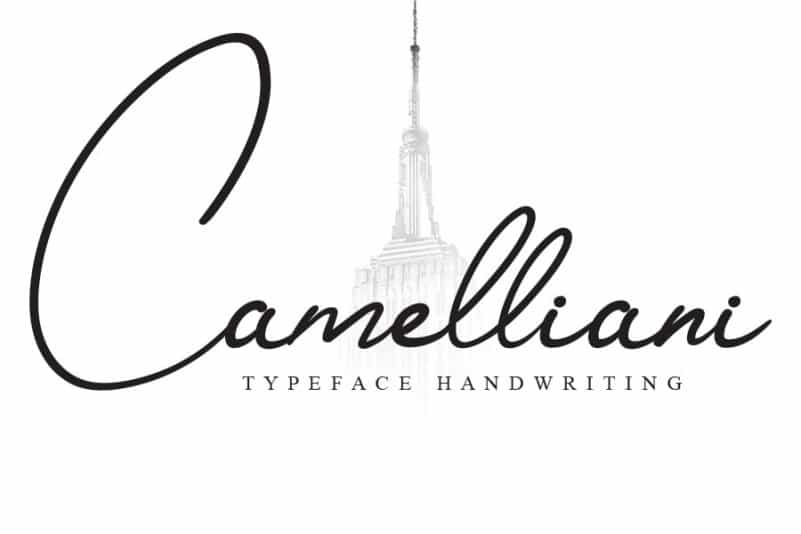
Camelliani Script Font
Camelliani Script Font is a delicate and natural script font. It has beautiful and well balanced characters and as a result, it matches a wide pool of designs. Add it to your most creative ideas and notice how it makes them come alive!
the latest style letters are perfect for wall displays, wedding invitations, social media post logos,
advertisements, product packaging, product designs, labels, photography, watermarks, invitations, stationery,
and any project that requires taste handwriting.